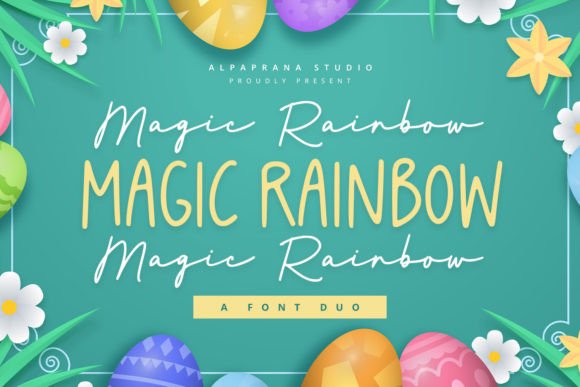
Introducing the Magic Rainbow Font - the ultimate font duo for anyone looking for a modern and playful feel. Created by the talented team at alpapranastudio, this display font is perfect for a wide range of design projects, including branding, logo design, lettering, and so much more.
If you're in the market for the best font for wedding invites, look no further than Magic Rainbow. With its unique blend of whimsy and sophistication, this font is sure to set the perfect tone for your special day.
But the Magic Rainbow Font isn't just for weddings - it's a versatile font that can be used for everything from clothing design to book covers. Whether you're designing a poster, a magazine, or even a shopping bag, this font is guaranteed to make your design stand out from the crowd.
So why choose Magic Rainbow? For starters, it's a font duo, which means you get two amazing fonts for the price of one. And with its modern, playful feel, Magic Rainbow is perfect for designers who want to add a touch of whimsy to their work.
But perhaps the best thing about Magic Rainbow is its ability to evoke emotion. Whether you're looking to create a sense of fun and playfulness or a feeling of elegance and sophistication, this font has you covered.